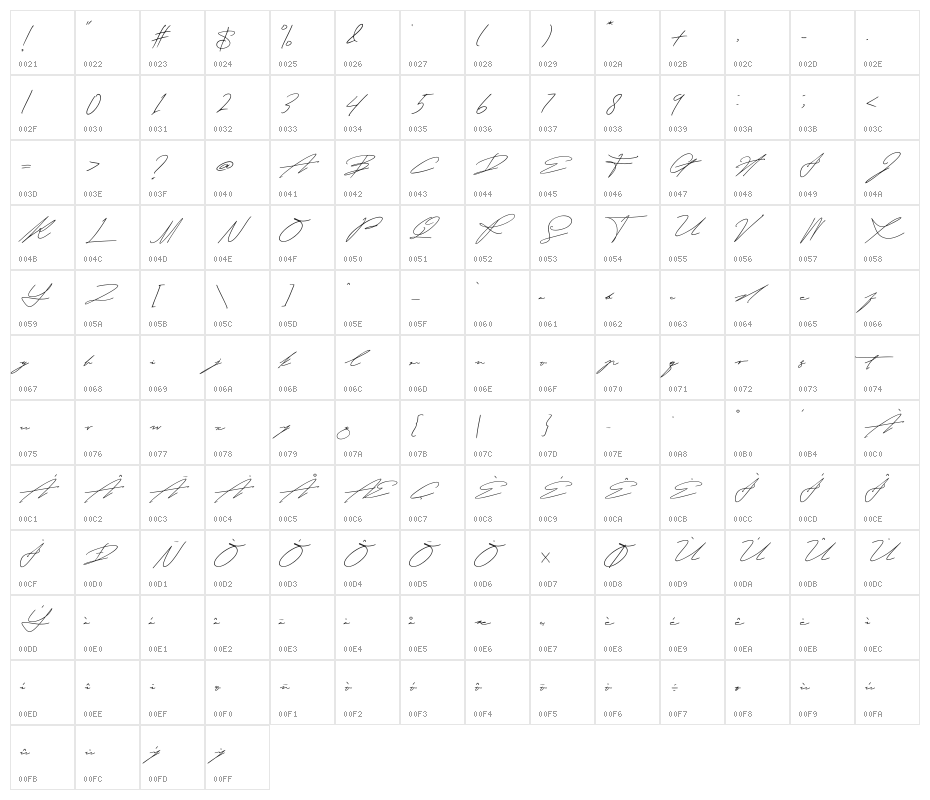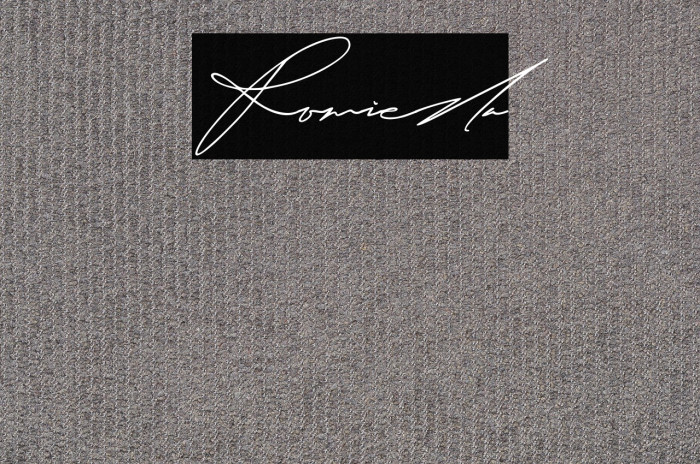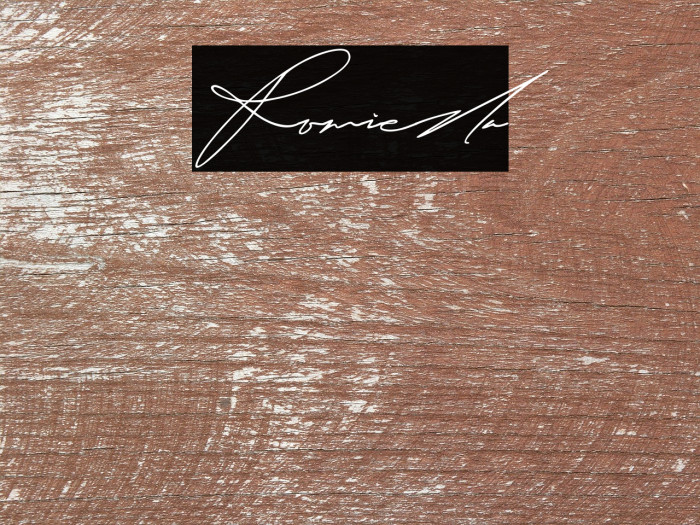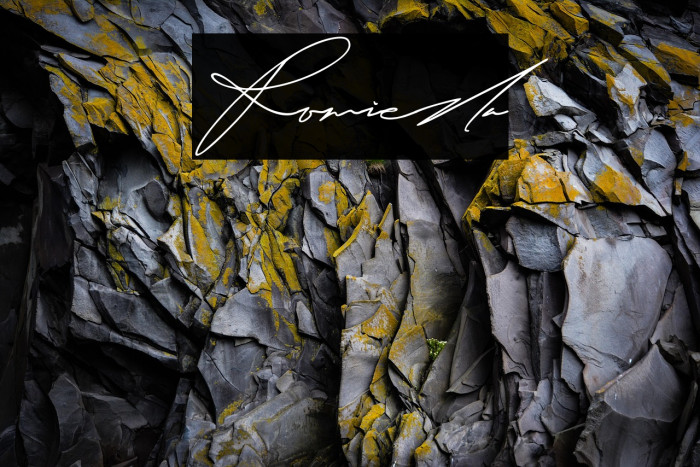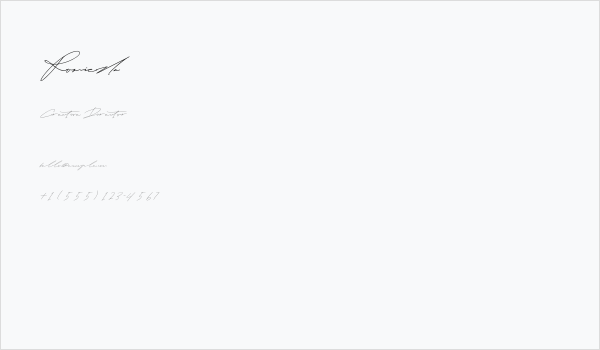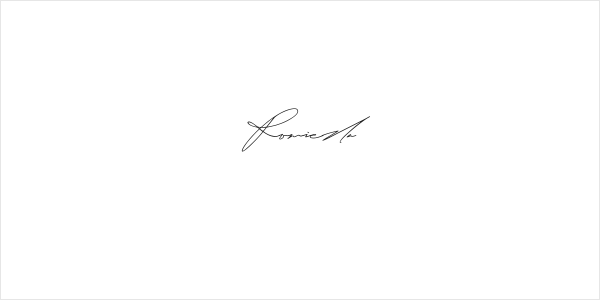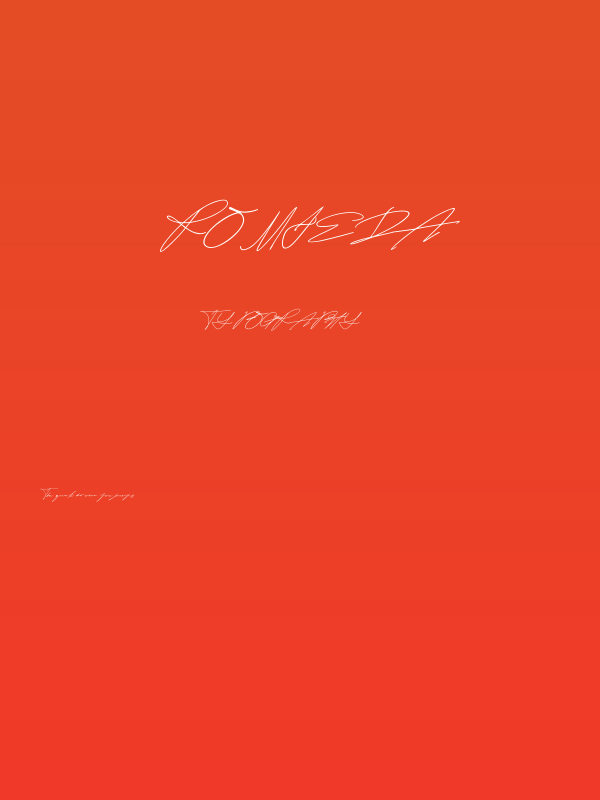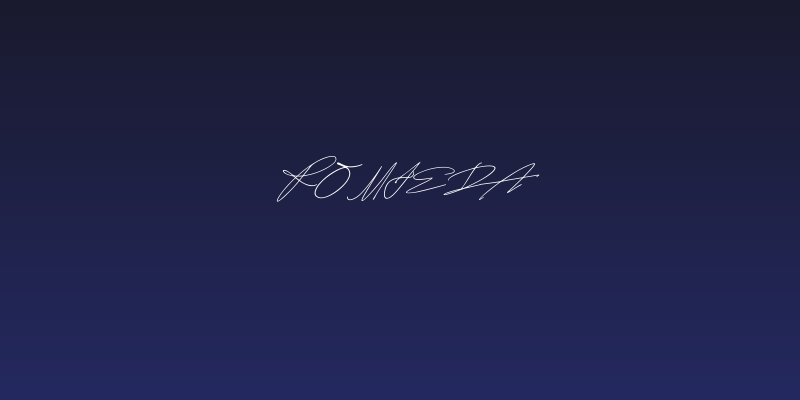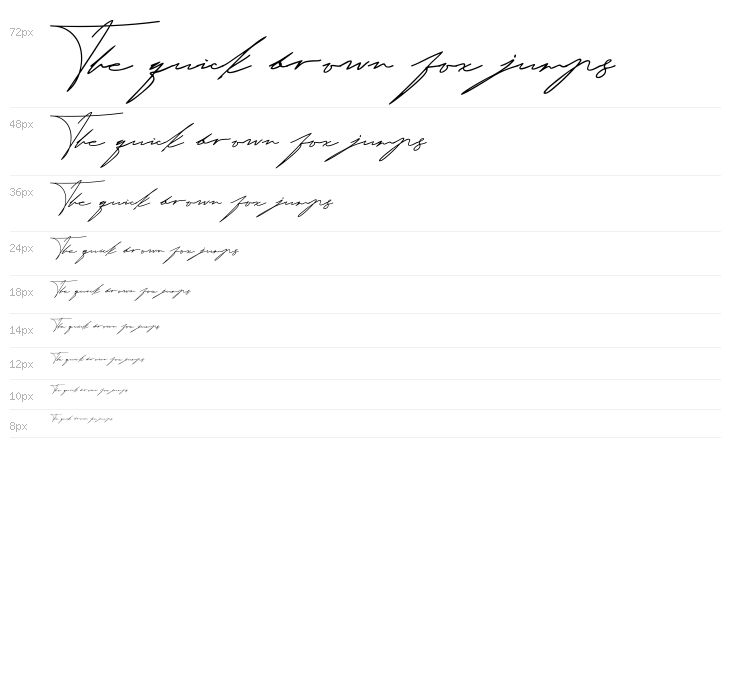
Romieda Font
Romieda Description
A flowing, cursive script font with a handwritten style, featuring elegant, connected letters and a natural, personal touch.
| Use Case | Logos, Invitations, Personal notes |
| Proposed Projects | Invitations, personal letters, branding. |